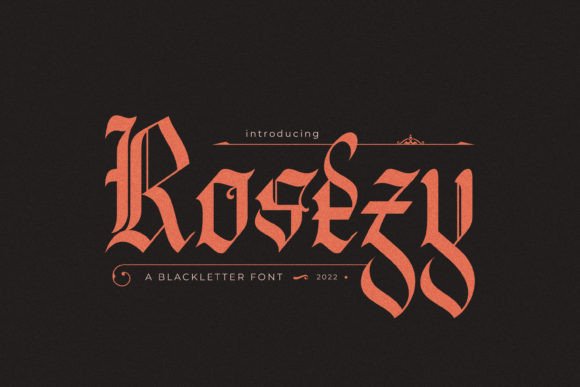
Journey into the realm of opulence and grandeur with Rosezy Font, a blackletter masterpiece that commands attention and ignites the senses. This striking font, forged by the creative genius of inferno.type3, is a visual symphony of bold lines and intricate details, capturing the essence of power and authority.
Rosezy Font is not just a font; it's an experience that transports you to a bygone era of kings, queens, and noble knights. Its sharp angles and historical roots evoke a sense of majesty and sophistication, making it the perfect choice for those seeking to make a lasting impression. Whether you're designing formal invitations, creating captivating branding, or crafting logos that exude power, Rosezy Font is your muse.
With Rosezy Font, your designs will radiate an aura of elegance and distinction. Its intricate details and sweeping curves invite the eyes to linger and explore, revealing hidden depths of beauty and artistry. This font is a true conversation starter, guaranteed to leave an indelible mark on the minds of your audience.
Imagine your CV adorned with the splendor of Rosezy Font. Its bold presence commands attention, setting you apart from the ordinary and showcasing your professionalism and dedication. With Rosezy Font, your CV becomes a masterpiece that reflects your unique talents and unwavering determination.
Unleash the power of Rosezy Font and witness the transformation of your designs. Its timeless beauty and commanding presence will elevate your projects to new heights, leaving a legacy of excellence and admiration.